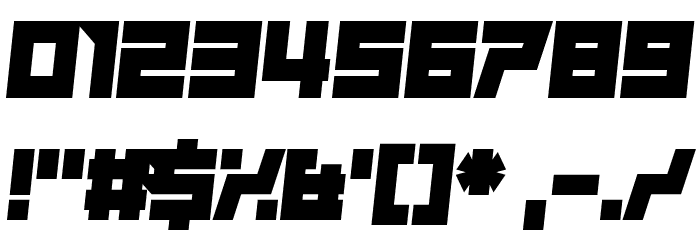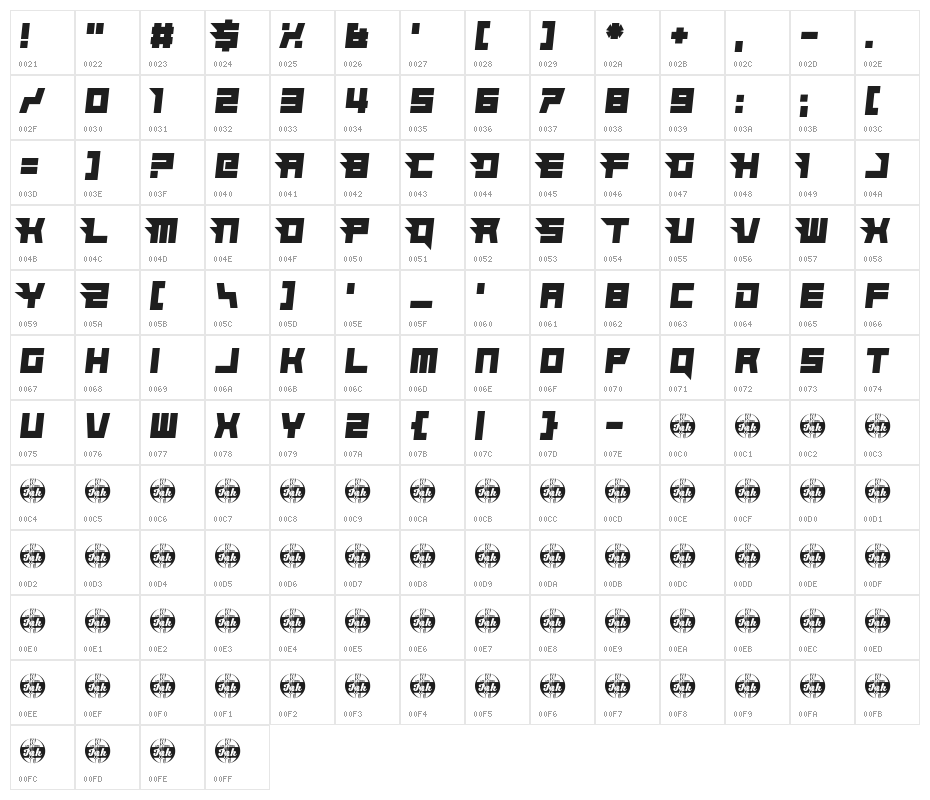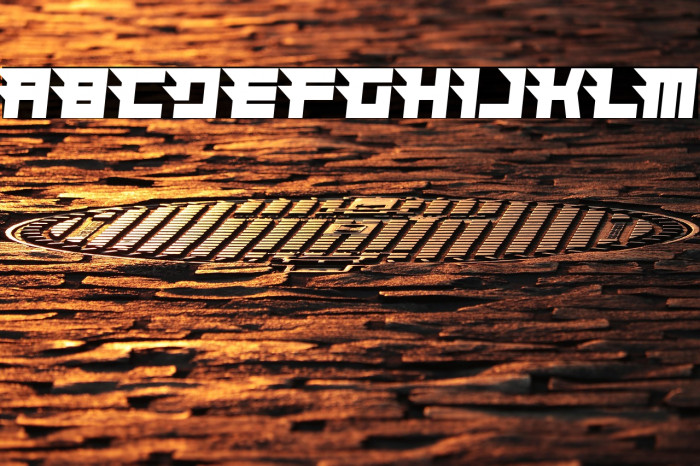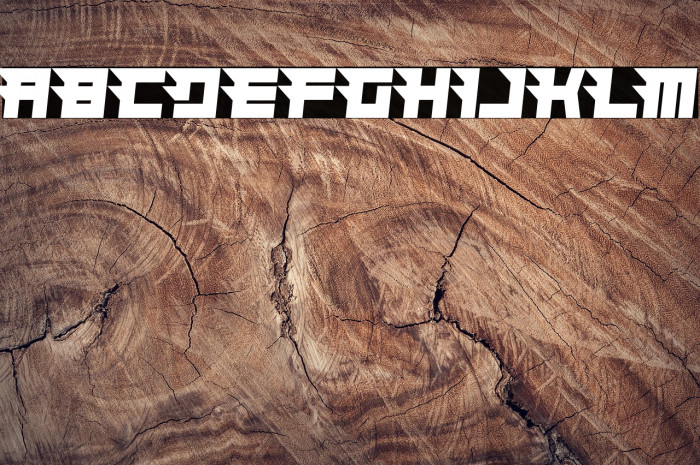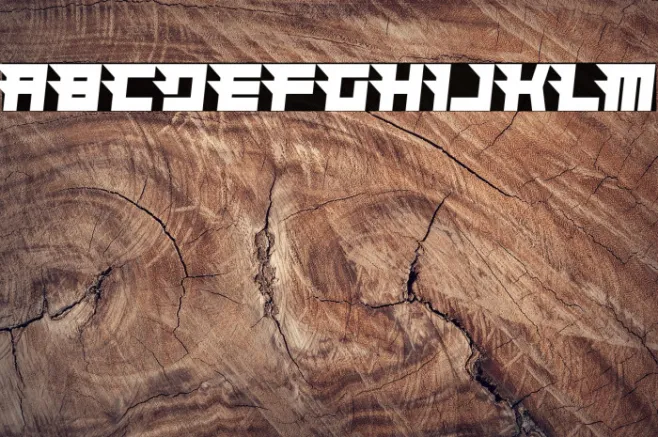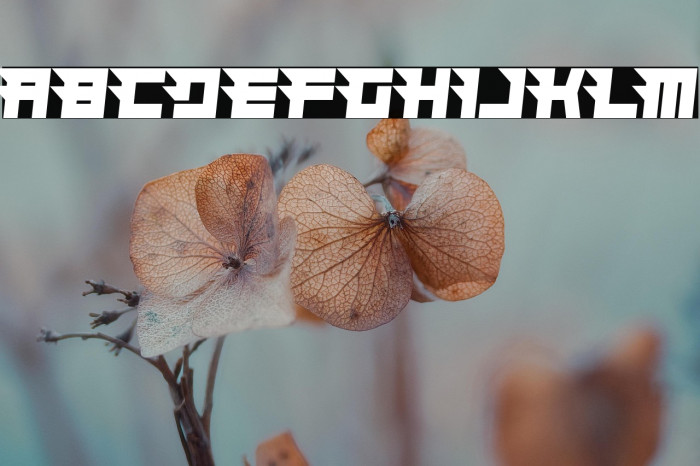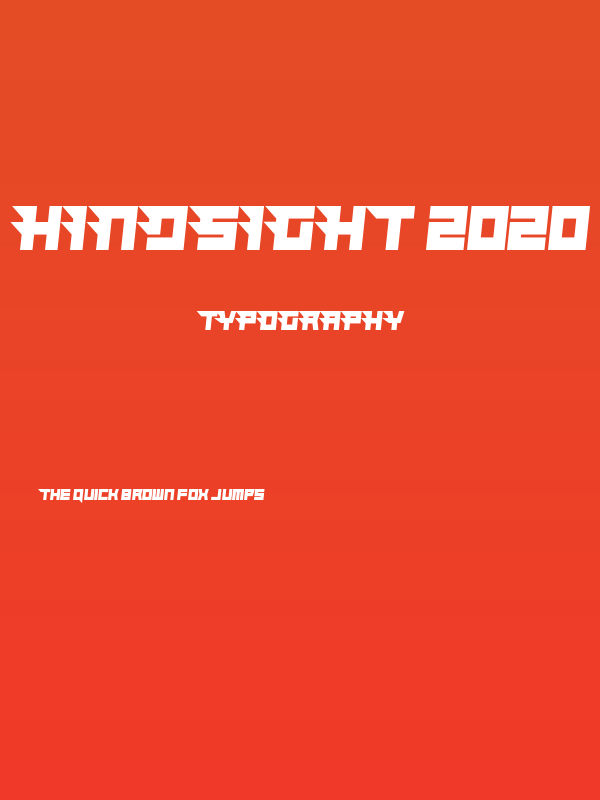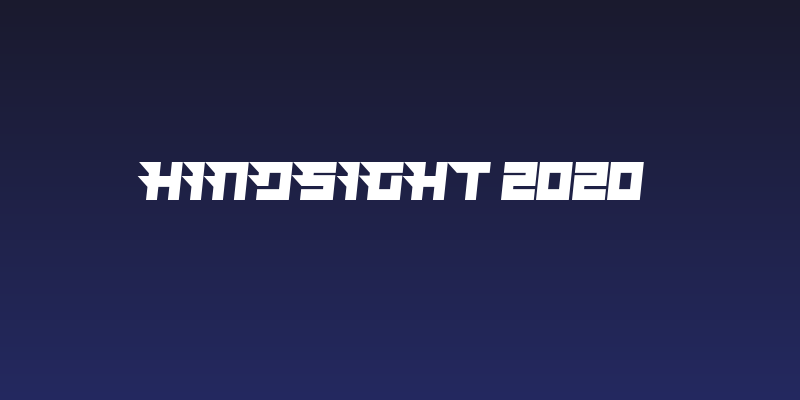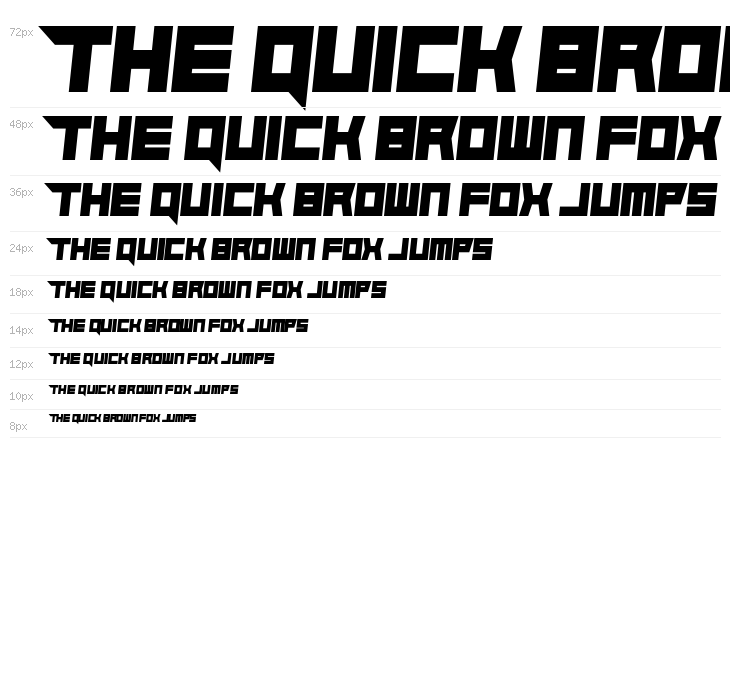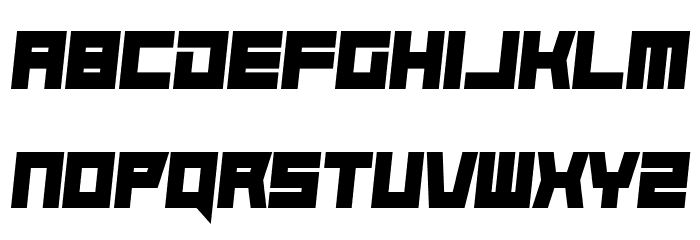
Hindsight 2020 Font
Hindsight 2020 Description
This font features a bold, angular design with a futuristic and dynamic appearance. The characters are constructed with sharp, geometric edges and a consistent thickness throughout. The uppercase and lowercase letters maintain a uniform style, emphasizing a strong, impactful presence. The numerals and special characters follow the same design principles, ensuring a cohesive look across all elements. The font's unique style makes it stand out, ideal for projects that require a modern and edgy aesthetic.